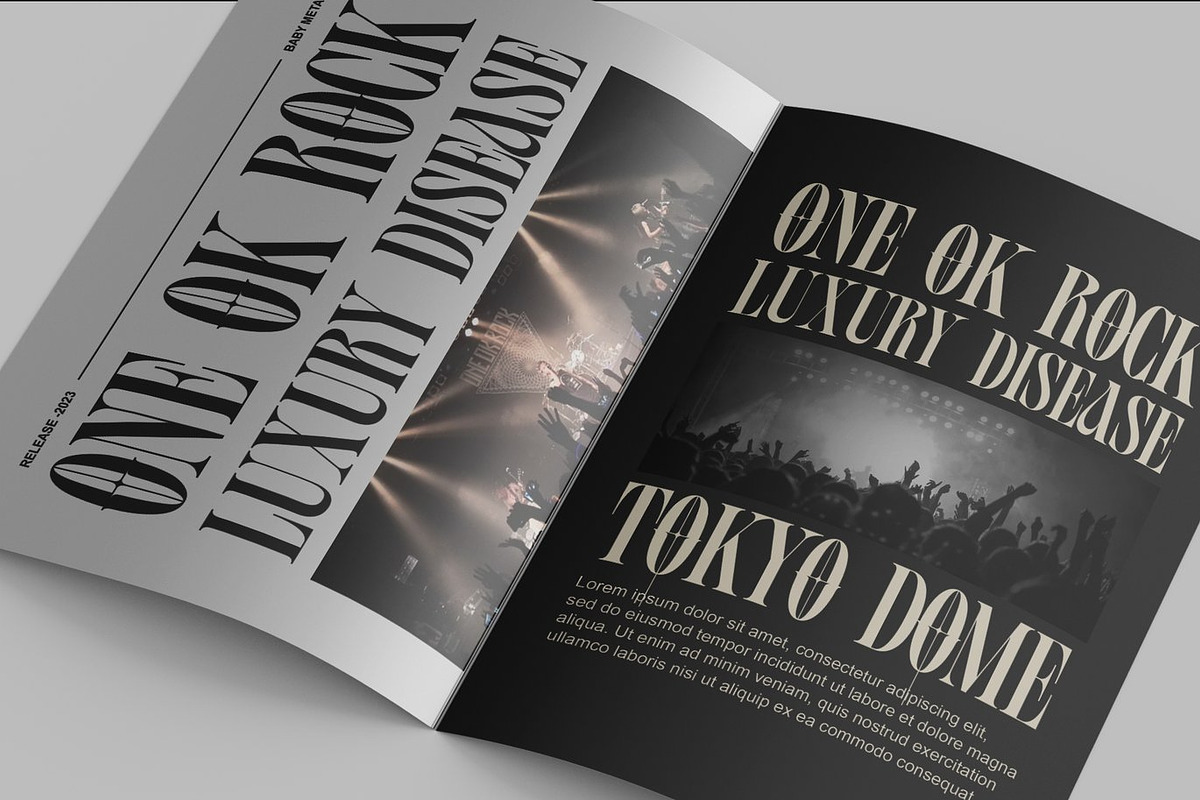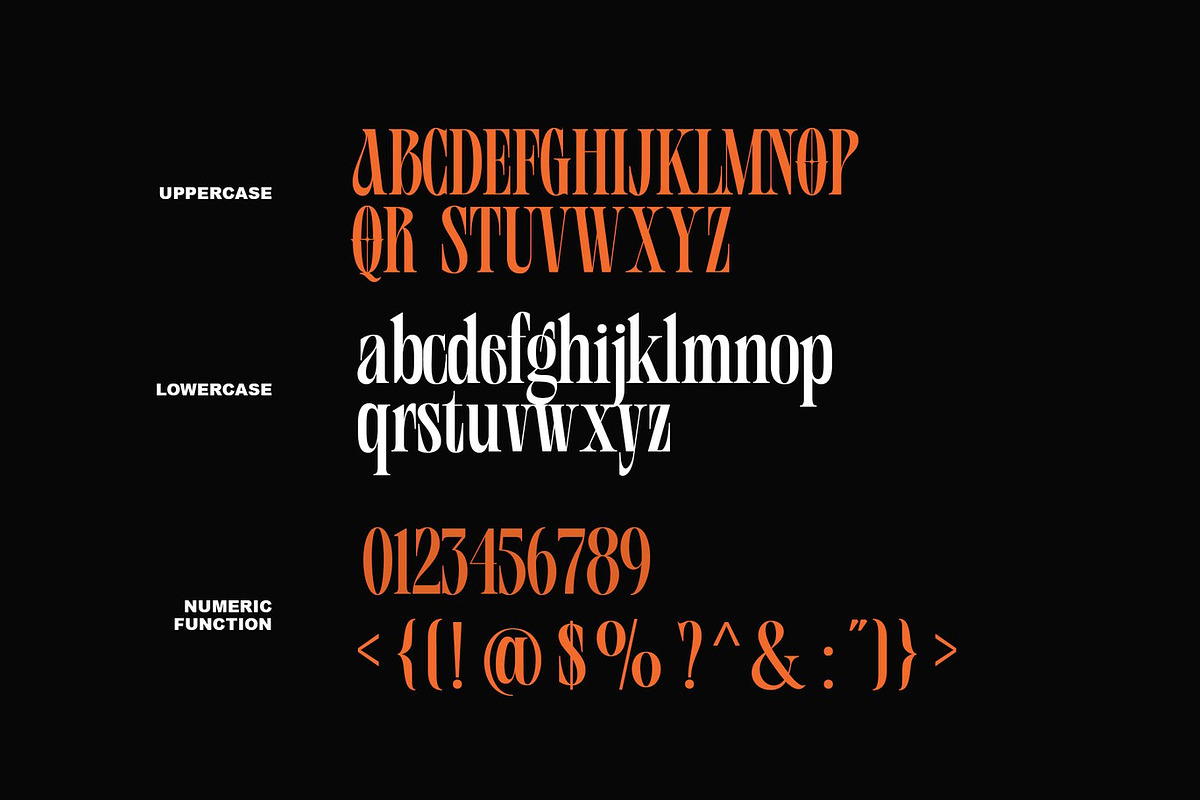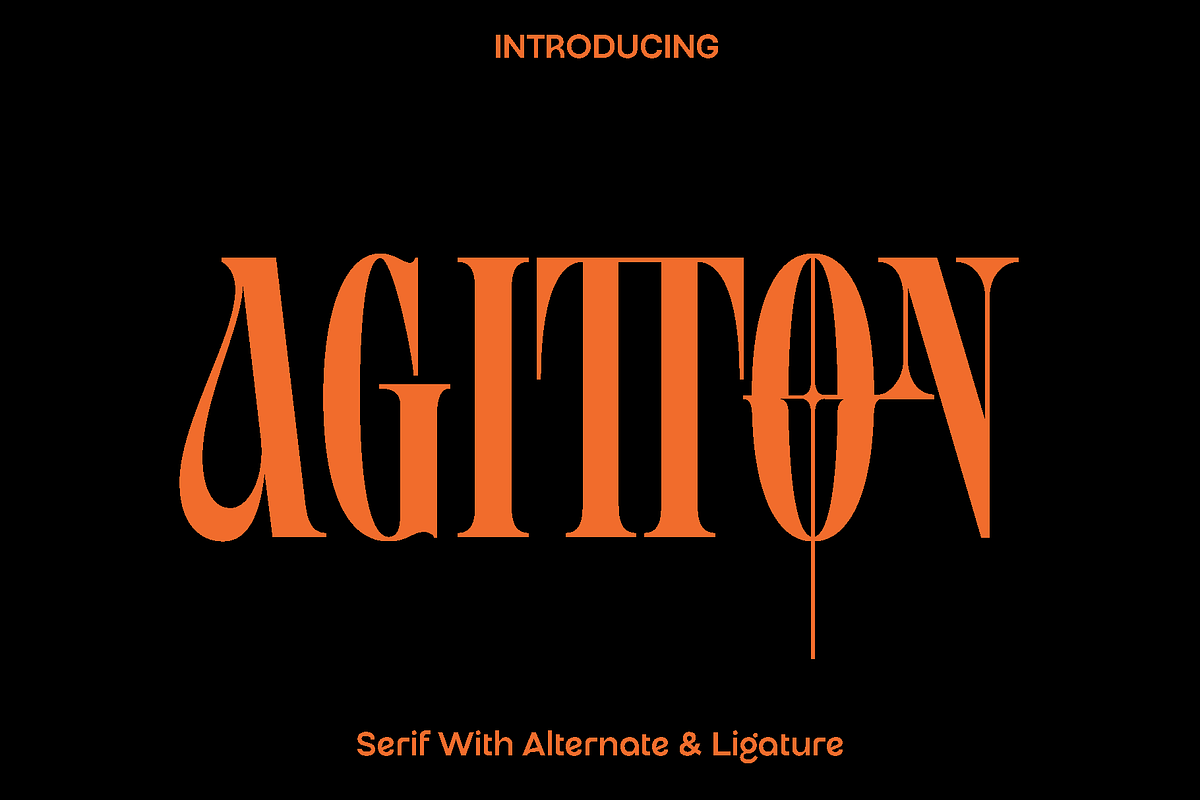
Agitton - Ligature Serif
Agitton is a modern and stylish typeface designed to bring elegance and versatility into a wide range of creative projects. Inspired by contemporary typography and refined design principles, Agitton combines clean structure with subtle character details that create a sophisticated and balanced appearance. Every letterform is crafted carefully to deliver both visual beauty and excellent readability.
Agitton feels polished, expressive, and adaptable, making it a reliable choice for designers who want typography that stands out while remaining timeless. The smooth curves and well balanced proportions give the font a professional personality that works beautifully across both print and digital designs. Whether used for bold headlines or refined text compositions, Agitton adds a distinctive touch that enhances the overall visual impact.
This font shines in many creative applications including books, magazines, logos, branding projects, photography overlays, quotes, blog headers, posters, and advertising materials. Its versatile nature allows designers to use it across different styles, from modern editorial layouts to elegant branding identities. The included alternates and ligatures provide additional typographic flexibility, helping you create more dynamic and expressive compositions.
Agitton is crafted to help designers communicate ideas with clarity, style, and personality. Its balance of modern aesthetics and functional design makes it a valuable addition to any creative toolkit.
Agitton Font Features:
• Uppercase and lowercase characters
• Numerals and functional punctuation
• Ligatures and alternate characters
• Multilingual support
• OpenType features